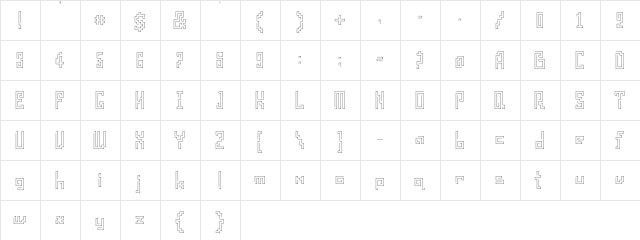
Pype Thin Font Preview
Pype Thin
Pype Thin Font Details
| Style | Thin |
| Designer | Ni֯ Piamonte |
Design Context for Pype Typeface
Pype offers clean, dependable letterforms without strong stylistic allegiance, making it a practical choice for designers who need flexibility. Its slender proportions lend an understated elegance to any composition.